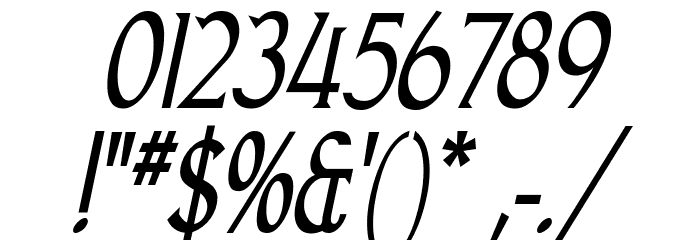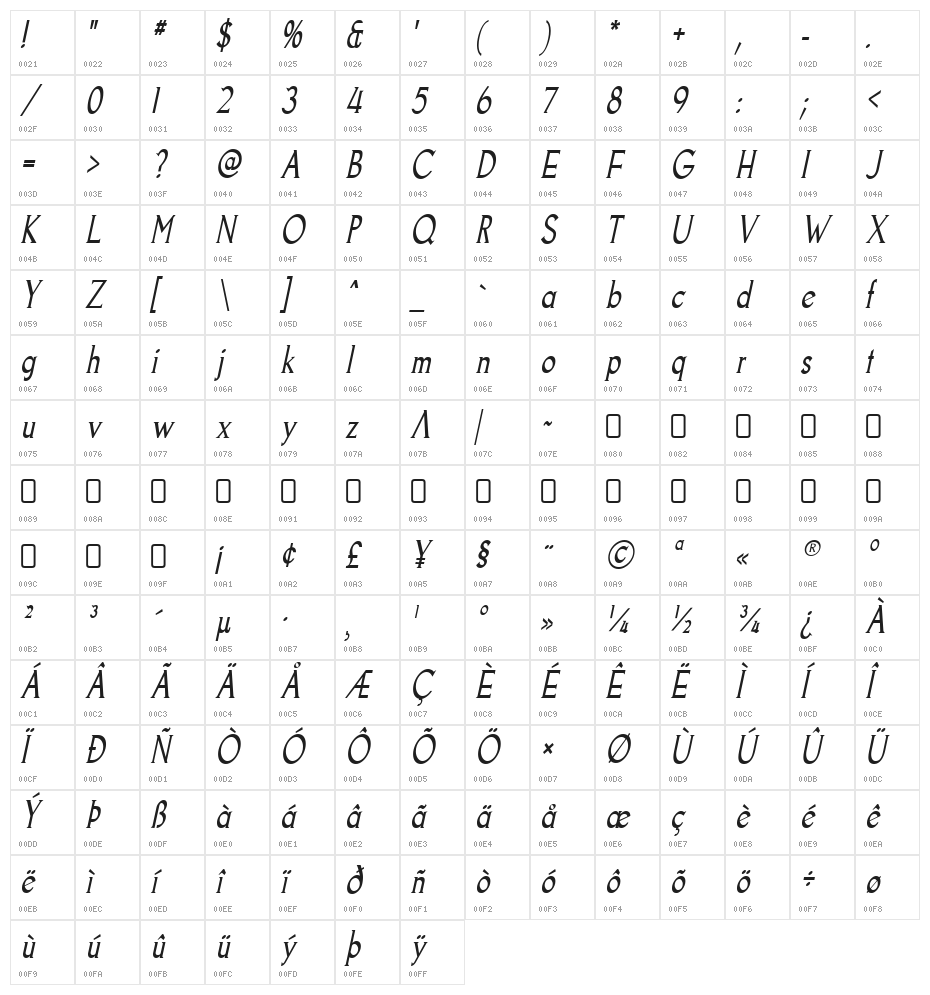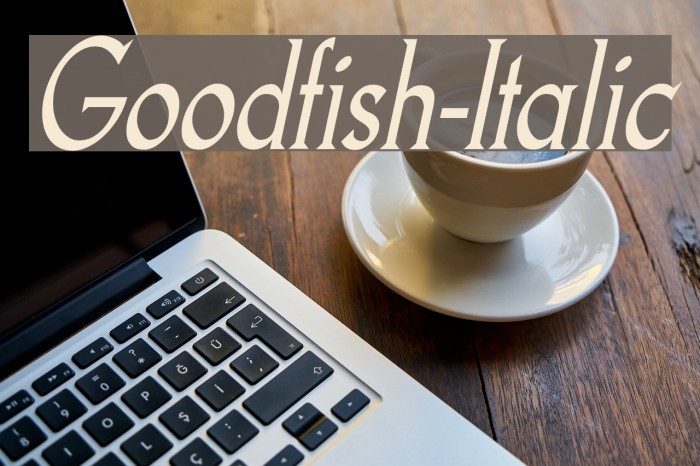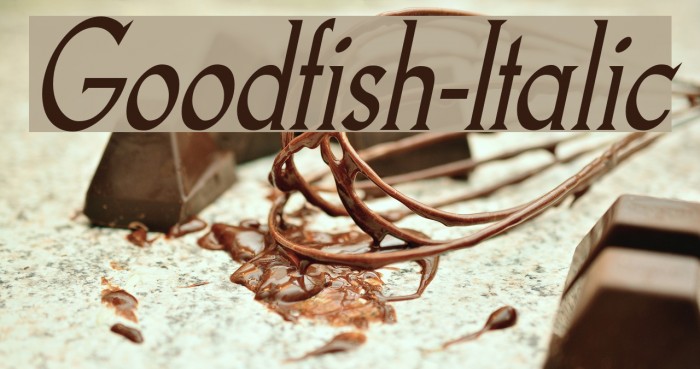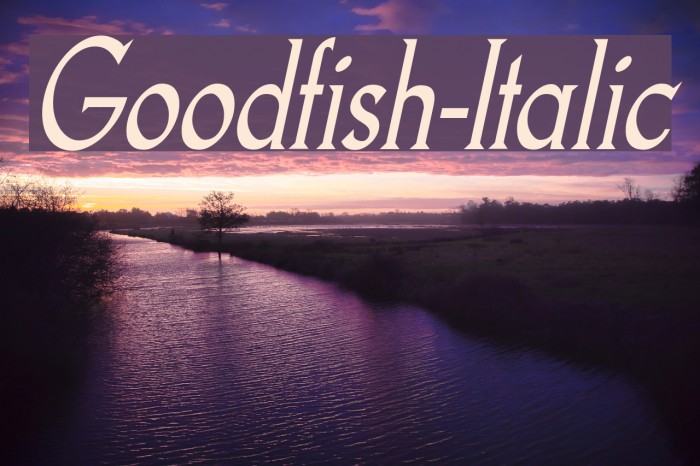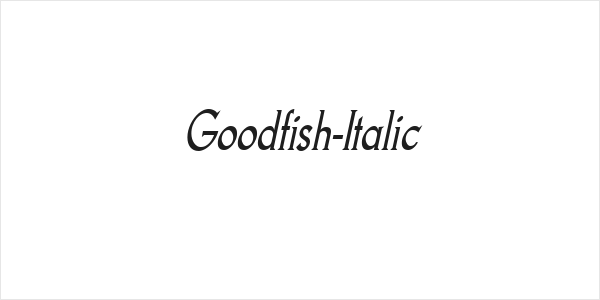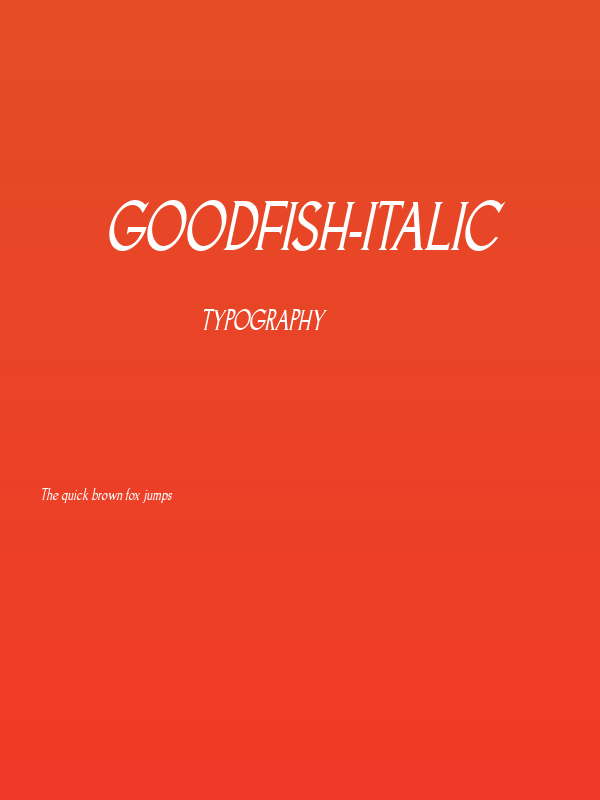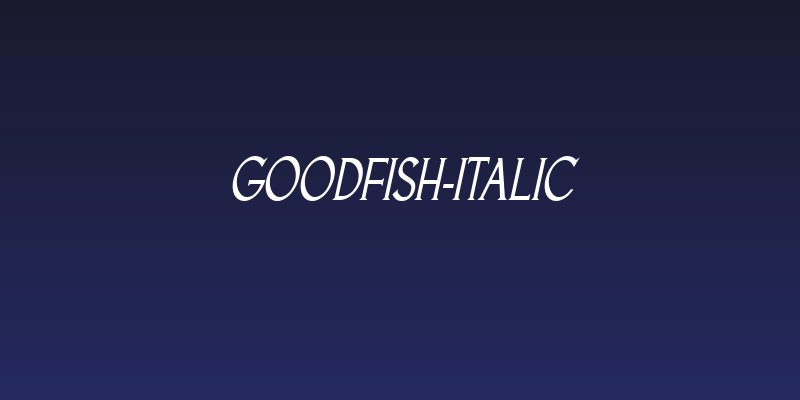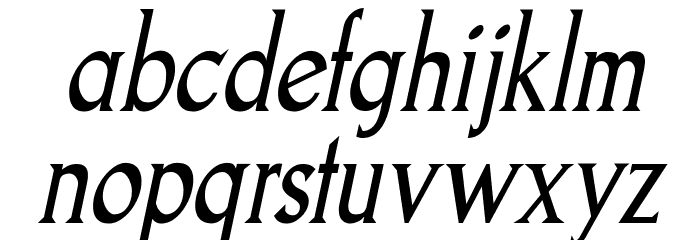
Goodfish-Italic Font
Goodfish-Italic Description
This font features an elegant and sophisticated italic style, characterized by its smooth, flowing lines and slightly condensed letterforms. The serifs are subtle yet distinct, adding a touch of classic refinement. The font maintains a consistent slant throughout, enhancing its dynamic appearance. The numerals are well-proportioned, and the special characters are designed with the same graceful curves, ensuring a cohesive look across all glyphs. This font is suitable for projects that require a touch of elegance and readability.
| Proposed Projects | Ideal for wedding invitations, formal event programs, elegant branding, and editorial design. |